Comic fonts are a natural choice for comic books and cartoons. However, thanks to their bold design, they can also be used in any design project that requires an eye-catching design.
They are a nice choice for poster, headers and banners. Some of them can also be used in children’s books to make them easier to read.
For a long time, Comic Sans was one of the few choices available for any design projects that needed a comic book feel. Luckily, nowadays there are many options available.
There are tons of free, high-quality comic book fonts that you can use to spice up your designs. Some of these fonts are free for personal use and some can be downloaded and used in commercial projects.
1. Reality Check Comic Font
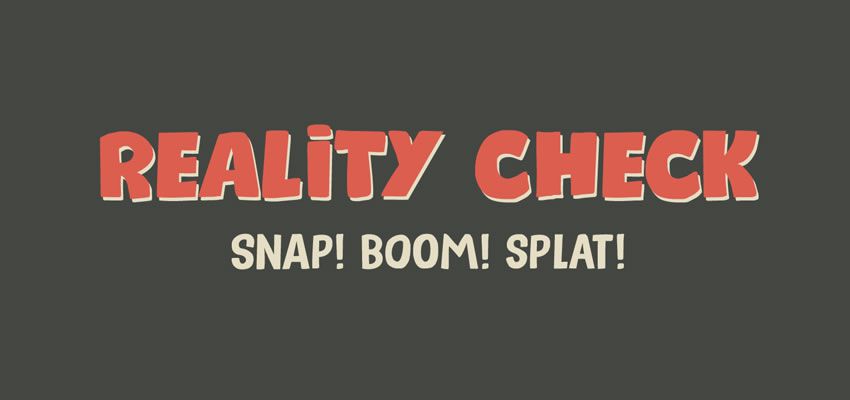
The Reality Check is a great choice for a comic book font. It is free for personal use while a commercial use requires you to purchase a license. The font features bold letters in uppercase and a few extra symbols.
2. Adam Warren Pro Font Family
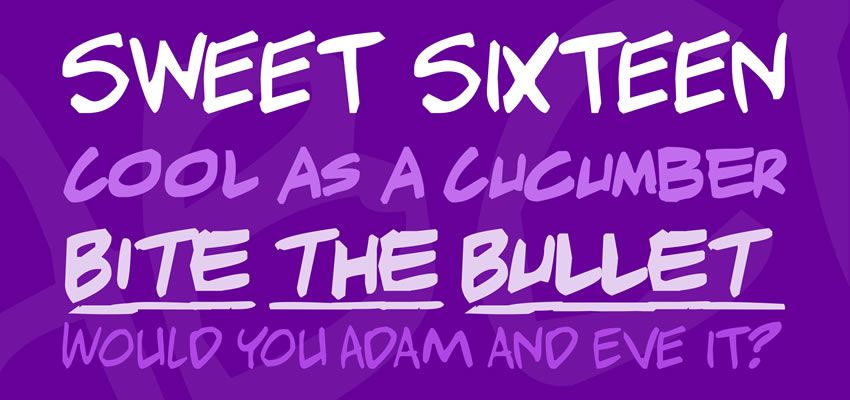
The Adam Warren font family comes in three weights which include regular, bold, and bold italic. You can download and use the font in any personal project. If you want to use the font for commercial purposes, a donation is appreciated.
3. Best Friends Comic Font
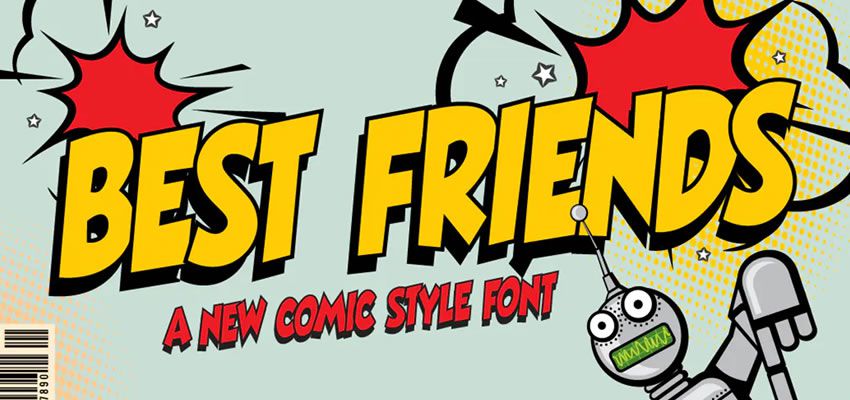
Best Friends is a bold comic style font that you can download for free when you sign up for Envato Elements. It’s a great choice for any comic book or poster design with a futuristic theme.
4. Boldly Missy Comic Handwriting Font
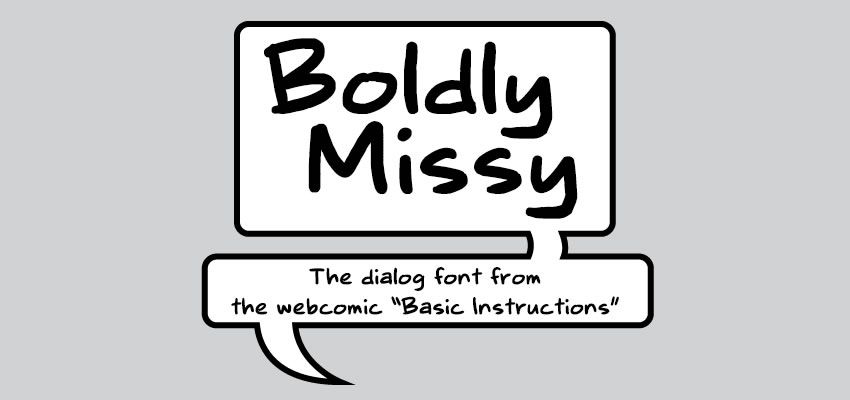
This font was inspired by the comic book Basic Instructions. The font is based on the font designer’s handwriting and can be used freely in both personal and commercial projects.
5. Badaboom Comic Font
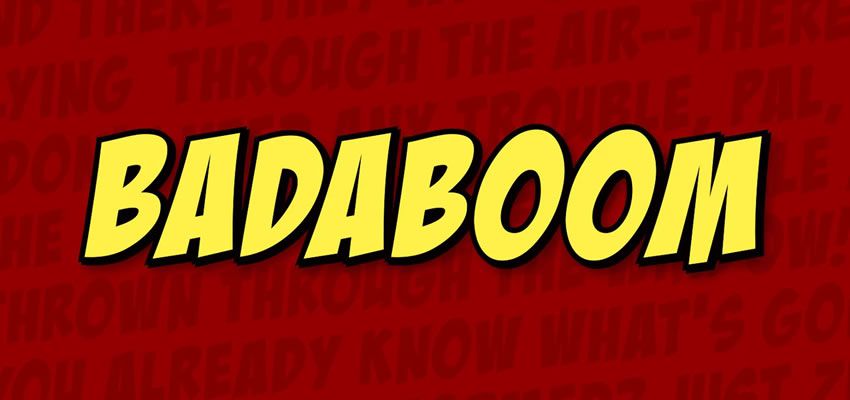
Badaboom is the original comic book font that’s been used worldwide in print and television use. The font can be downloaded for free if you plan on using it for non-commercial purposes or indie comic books.
6. Nikopol Typeface
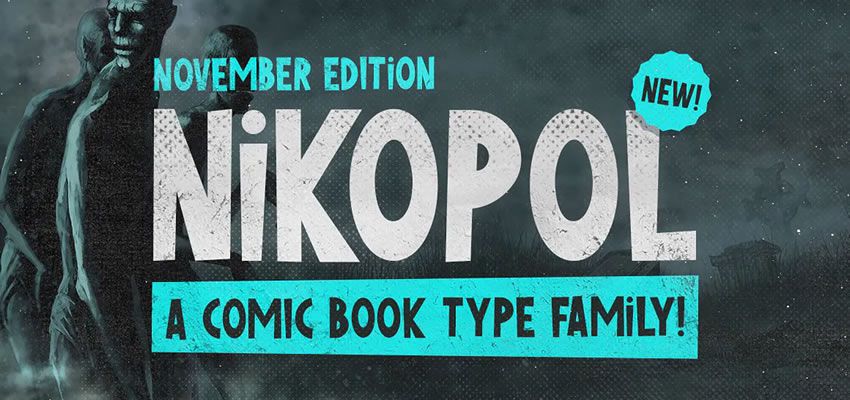
If you’re working on a vintage style comic book, the Nikopol font is the perfect choice. It includes uppercase multilingual letters, punctuation and numbers. It also comes in regular, rough and halftone styles.
7. Komika Font Family
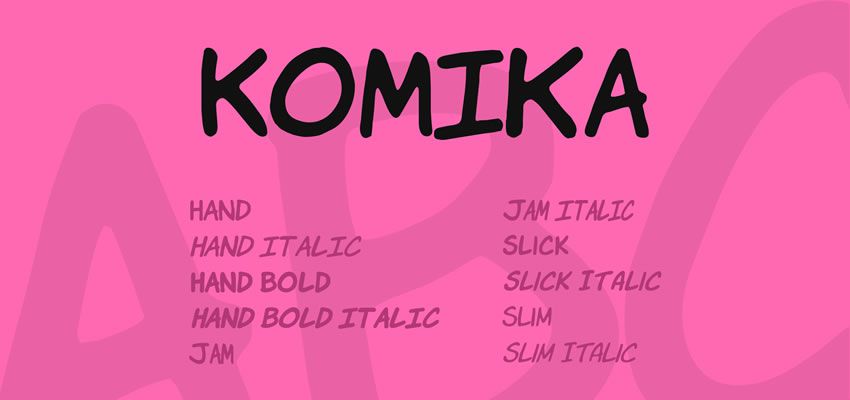
This font family comes with 50 fonts total and can be used in commercial and personal projects with no restrictions. The font comes with complete font for Latin and Latin extended alphabet.
8. Woodchuck Sans-Serif Font
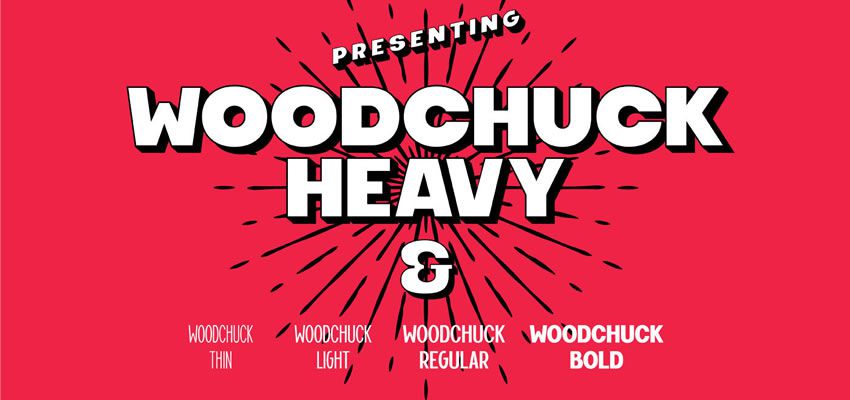
Woodchuck is a free and modern sans-serif font that would work well in any comic book. The font is free for personal and commercial use. It has uppercase and lowercase letters and over 100 different characters and glyphs, supporting almost all Latin languages.
9. Chubby Dotty Font
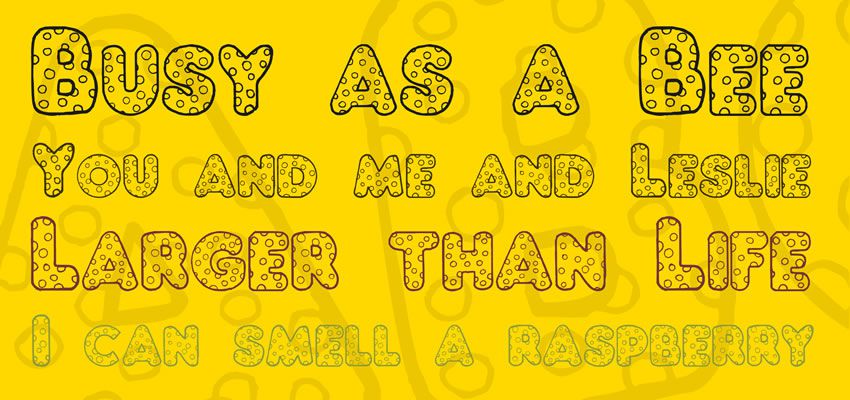
The Chubby Dotty font would be perfect for a children’s book or a comic book meant for younger audiences. It has a playful dotted look and comes in all caps and small caps variants.
10. Little Pea Font
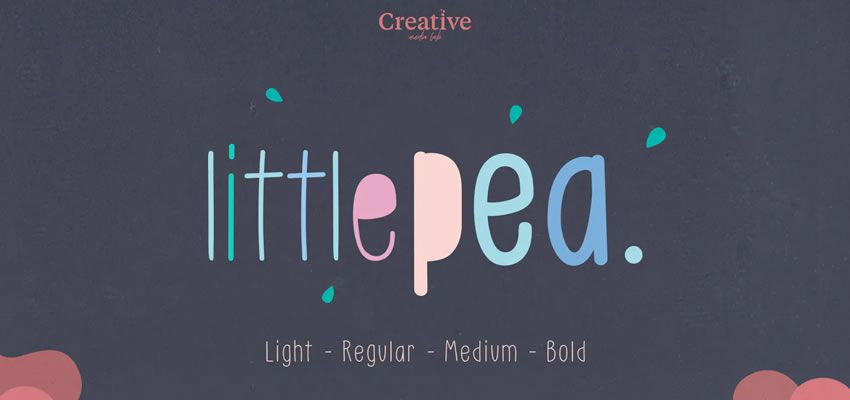
This is a handwritten font that would be a great choice for children’s books. It comes in four weights and you can download it for free as part of your Envato Elements subscription.
11. Creative Block Comic Font
The Creative Block font is another comic book font that’s bold and modern. It comes in two weights with support for limited European characters. It can be downloaded and used for non-profit purposes or indie comics.
12. Qarmic Sans Font
The Qarmic Sans font is a variant of Comic Sans but more rounded. It can be used for free for both personal and commercial projects. The font includes uppercase and lowercase letters, symbols, and numbers.
13. Simpsonfont
If you love The Simpsons, this font is a must. The new and updated version now comes with support for European characters. The font is a part of your Envato Elements subscription.
14. GoodDog Plain Font
This font can be used for both personal and commercial purposes with no restrictions. The font includes both uppercase and lowercase letters as well as numbers and symbols.
15. Crime Fighter Comic Font
The Crime Fighter font can be used for free in indie comics and non-profit projects. It includes uppercase letters, symbols, and numbers and comes in two weight variants.
16. Hey Comic
This font has a slightly bold look with a cheerful theme. It can be used in comic books as well as children’s books, birthday invitations, and more. The font can be downloaded from Envato Elements.
17. Billy Typeface
The Billy font is a modern, rounded font that can be used for personal projects. If you want to use the font commercially, you will need to purchase a license. The font includes uppercase and lowercase letters, numbers and symbols.